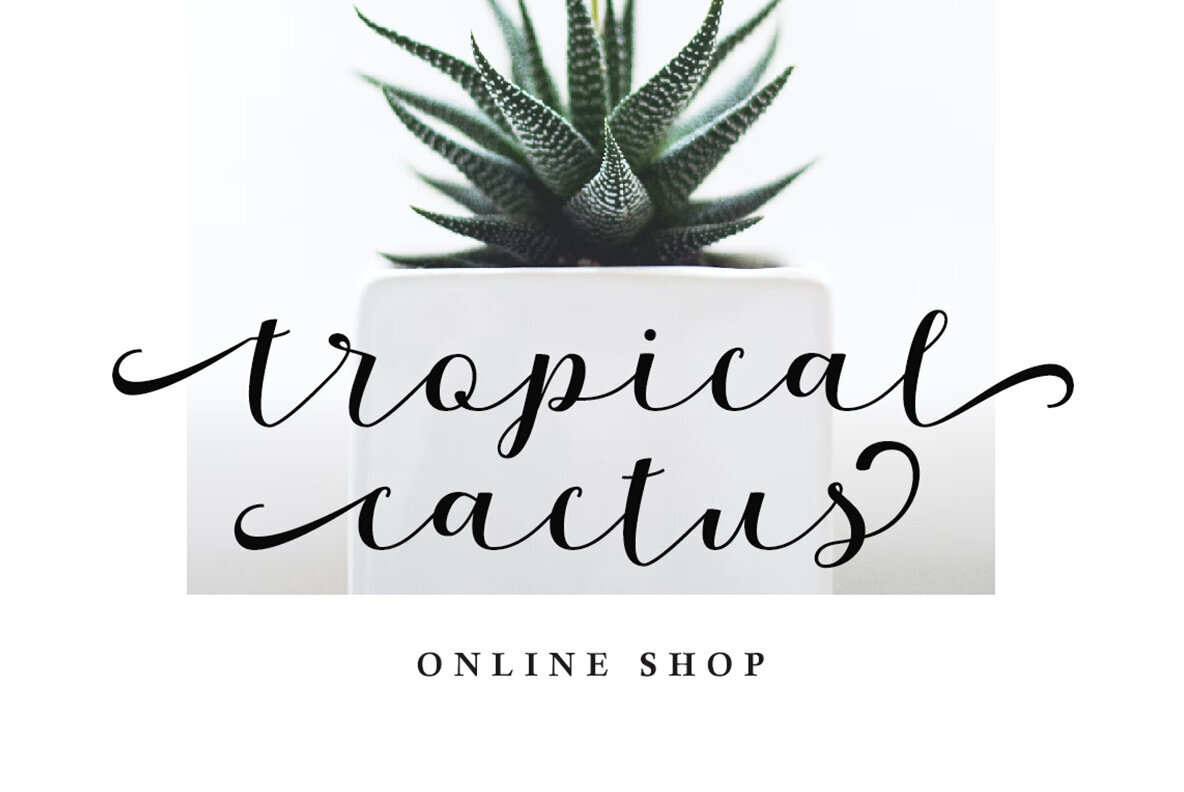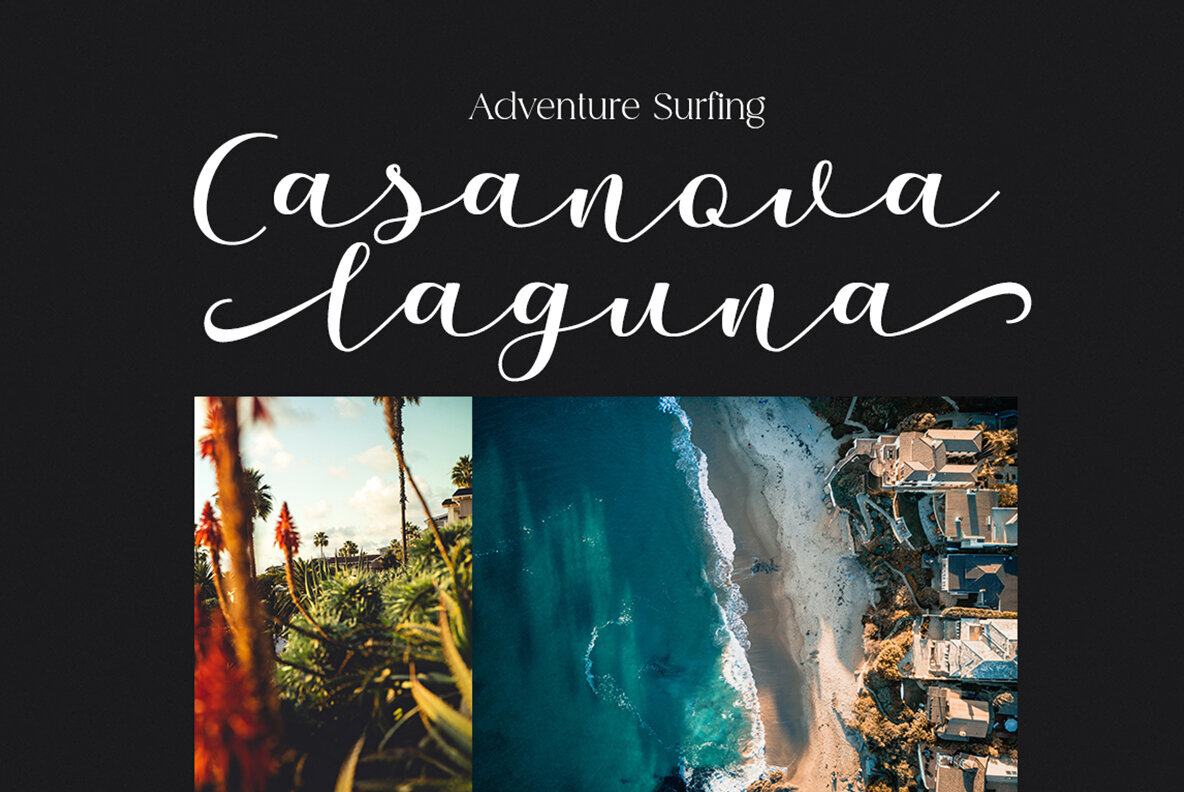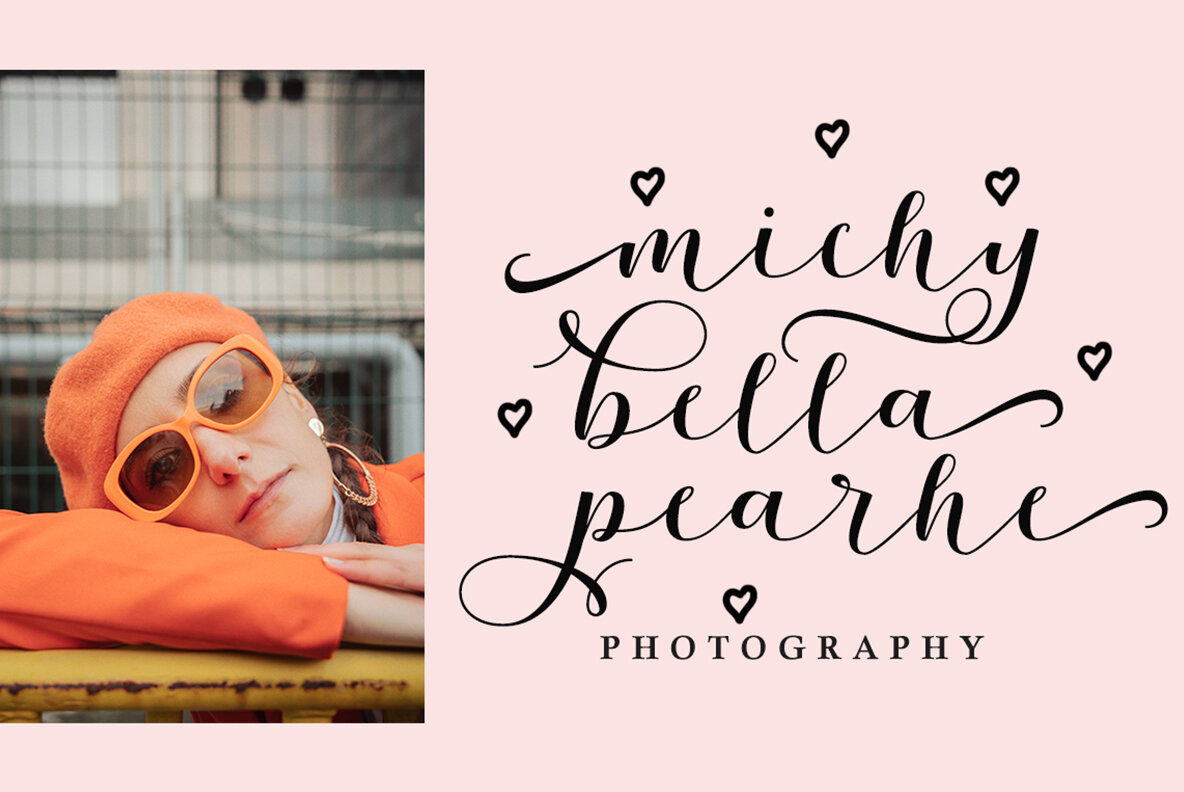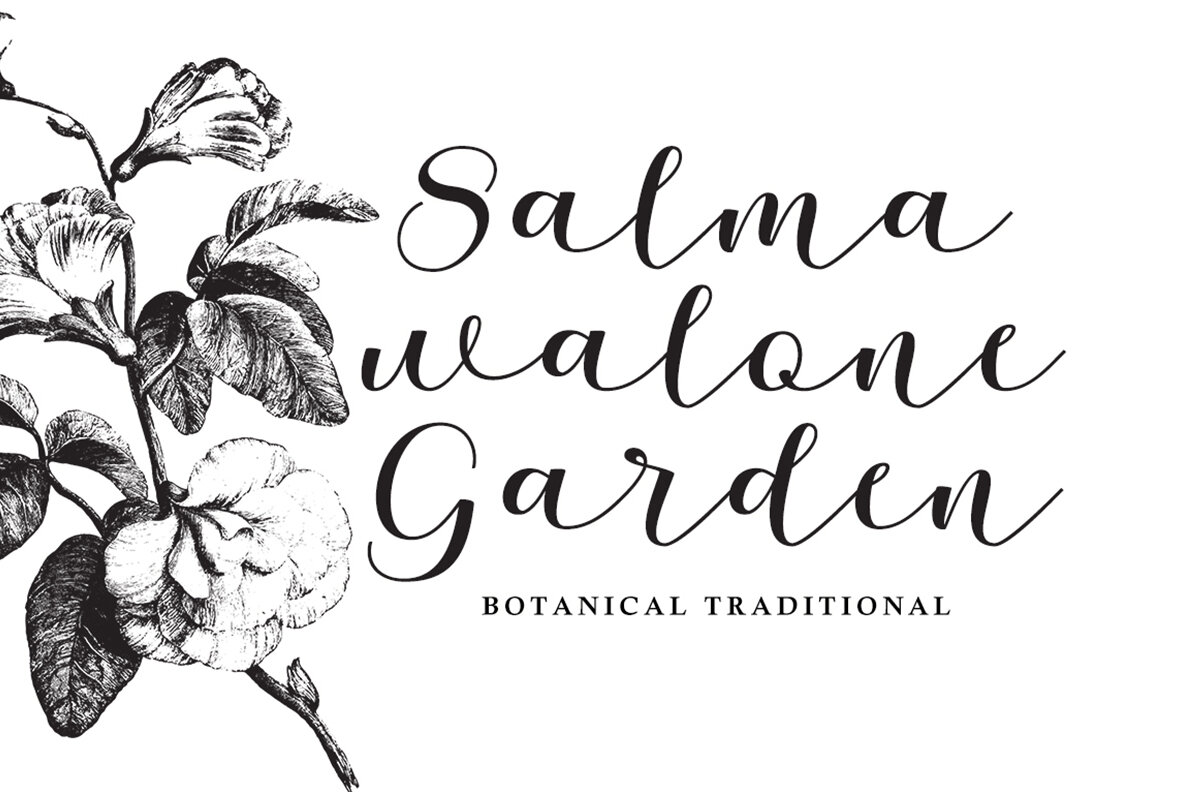
Mulan Font
Mulan Regular
The Mulan font offers a unique blend of classic elegance and modern calligraphy, making it an ideal choice for those seeking a sophisticated touch for their designs. Crafted with OpenType features, Mulan includes a variety of design elements such as initial and ending stylistics, alternative characters, numbers, punctuation, alternatives, and ligatures, and it also supports multiple languages.Mulan: Elegant Blend of Classic Style and Modern Calligraphy